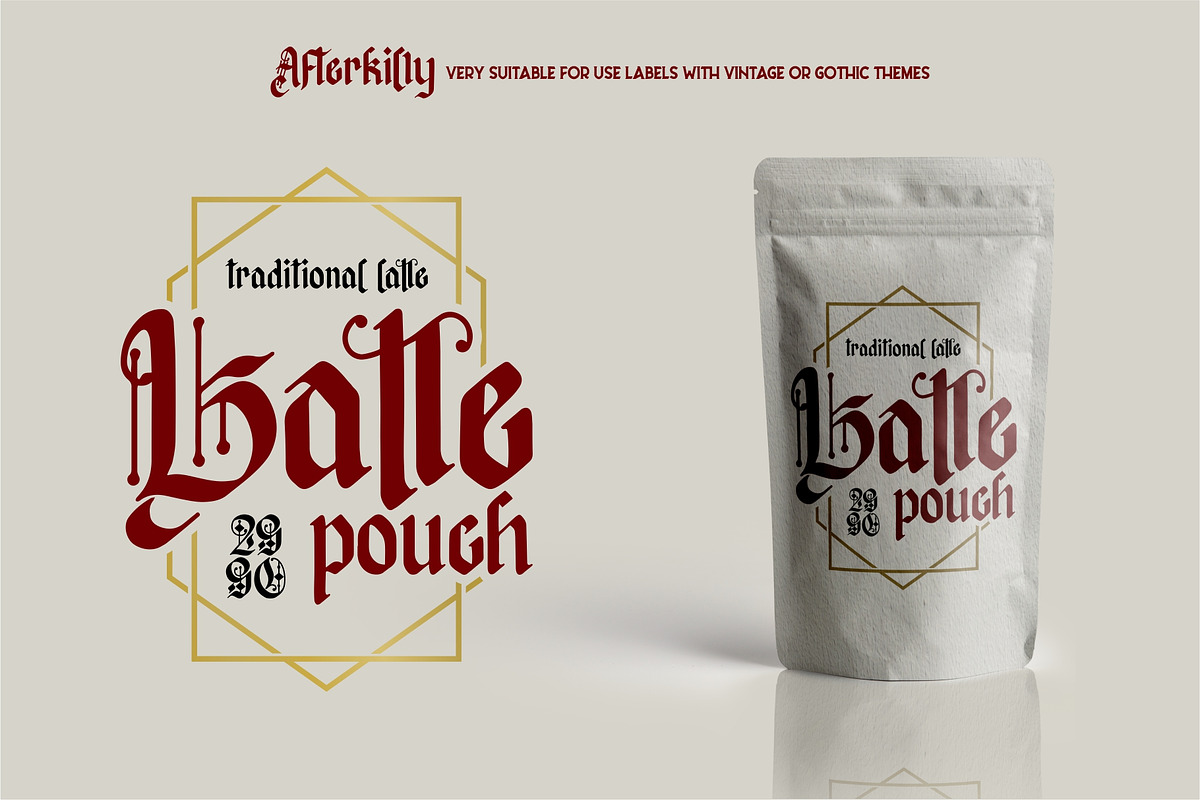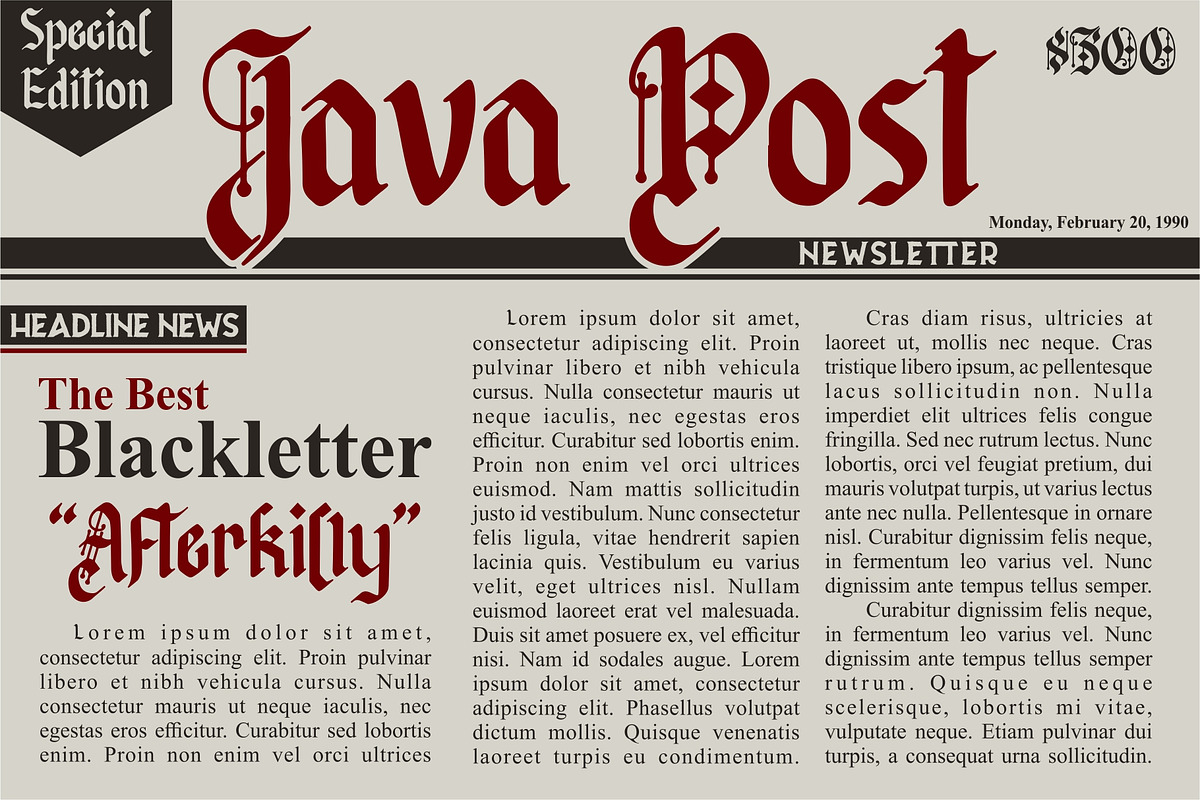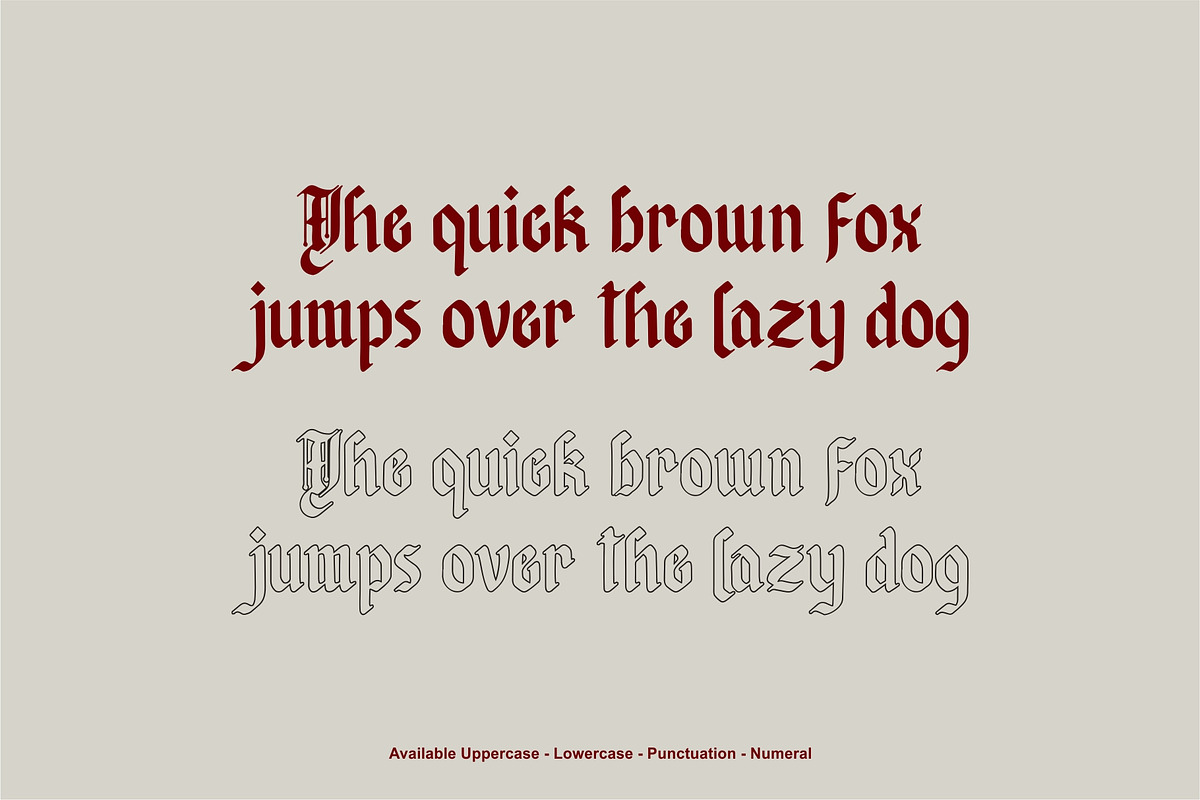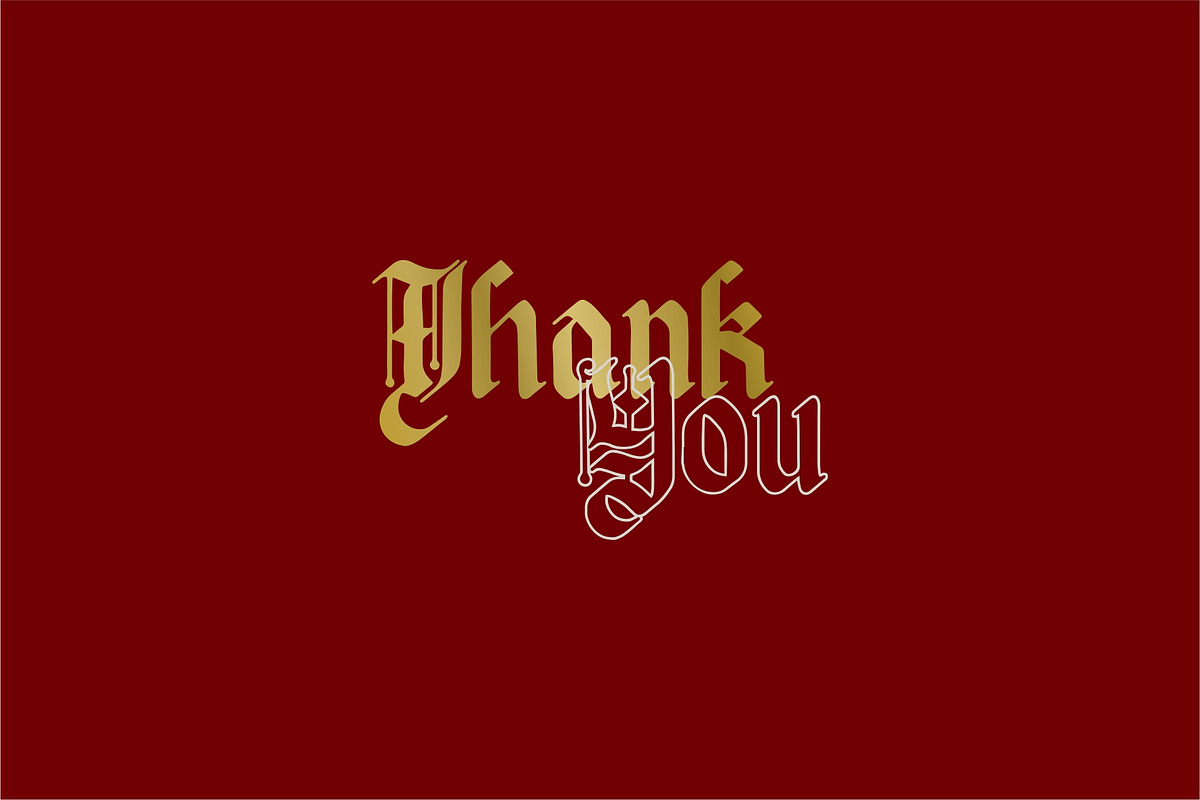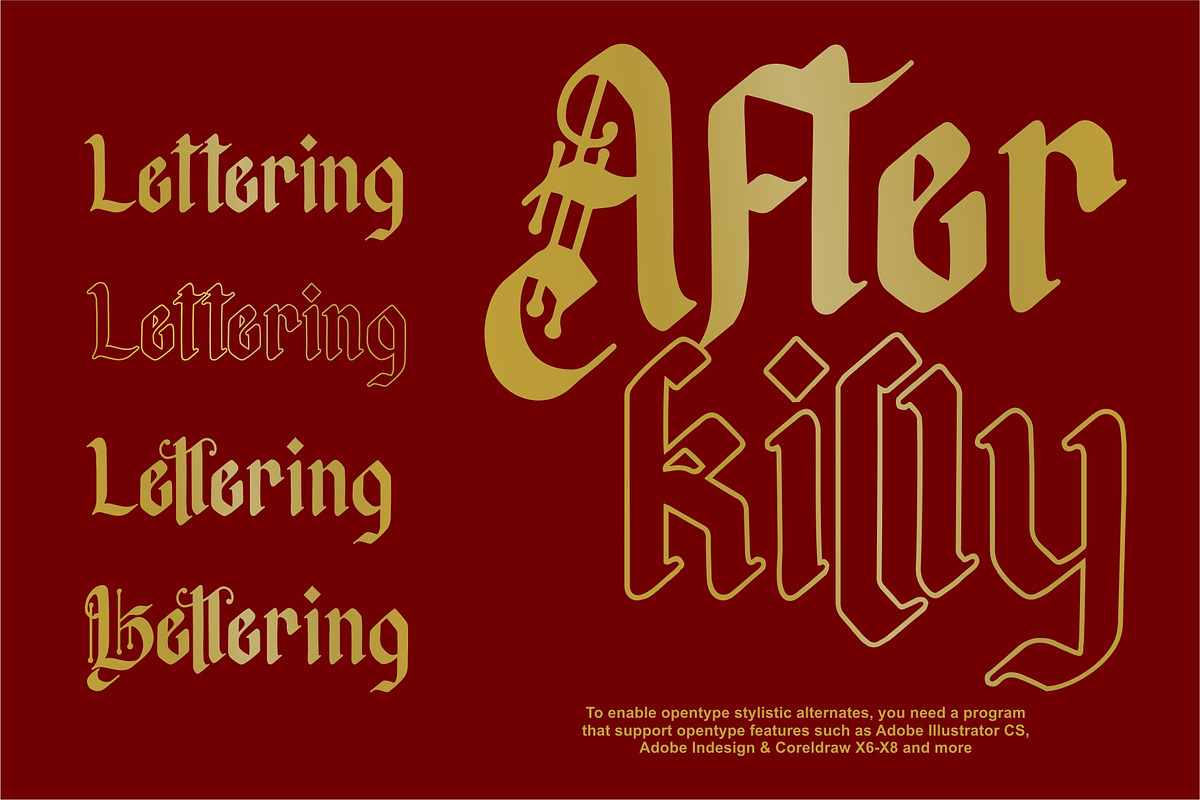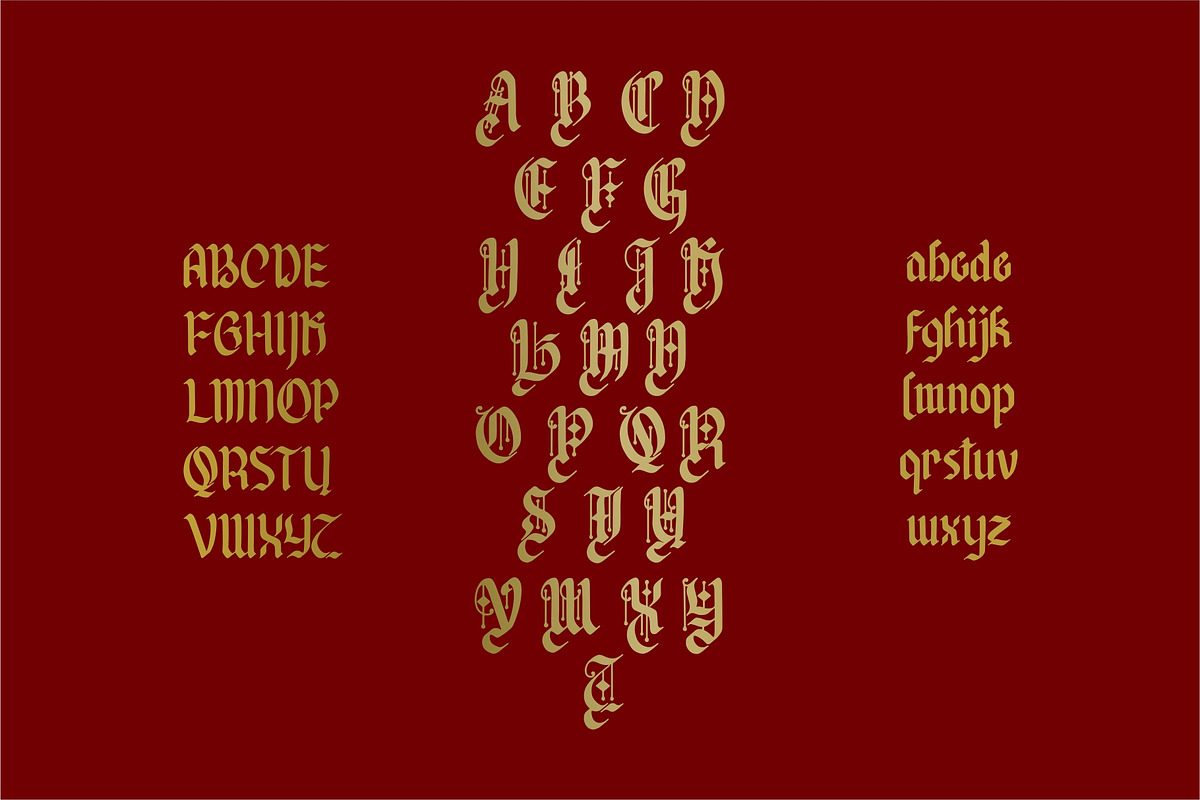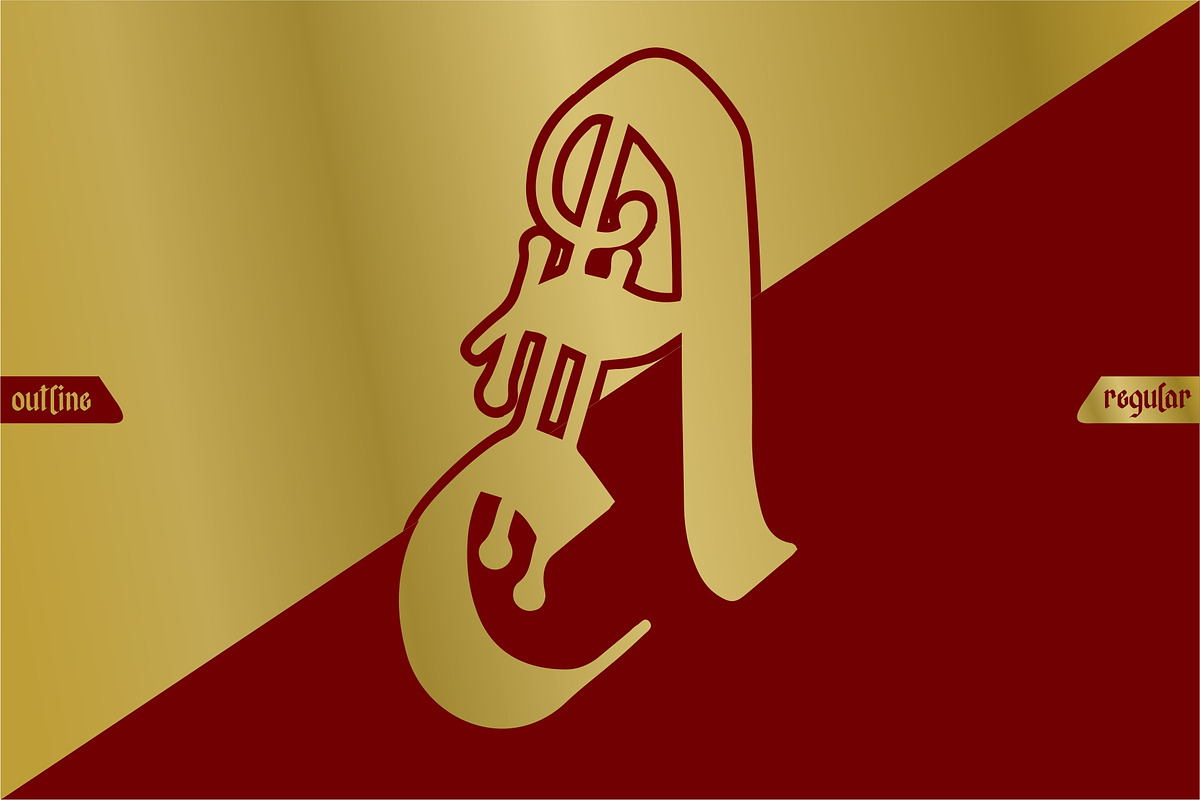
Afterkilly - Blackletter Typeface
Afterkilly is made of brush specifically for Blackletter font types. So that it has a natural blackletter touch. Very suitable for use posters, headlines, branding, labels, logotype, and much more.
In addition, Afterkilly is equipped with a Stylistic Alternate specifically for Uppercase. You can combine it with your great work. Also includes the style of Afterkilly Line for more perfect pairing (Note: Afterkilly Line cannot be combined with Afterkilly Regular. Only for pairing fonts)
Stylistic Alternates for Uppercase